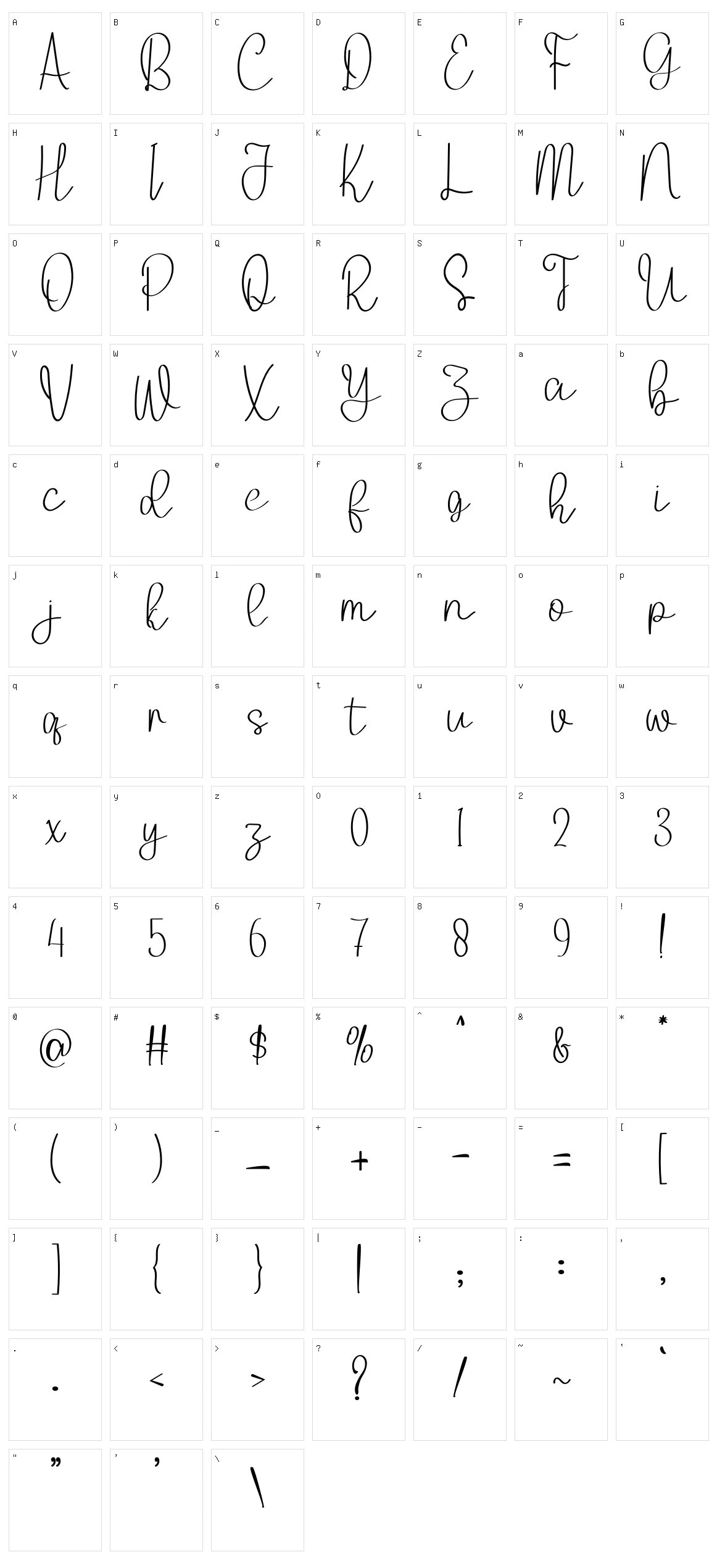
The free font Smooth Berry is carefully designed by Inermedia Studio, showcasing a thoughtful balance of creativity and usability and falls under the Script font style. When you download the ZIP file, it contains only 202.76 KB of font files, making it lightweight and quick to download. Please review the license details below to understand permitted usage and distribution rights. If license information is not available, we recommend using this font for personal projects only or contacting the author directly for commercial usage permissions.